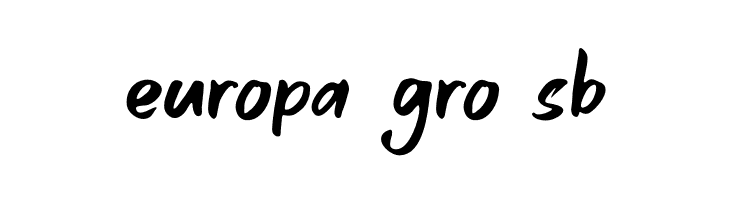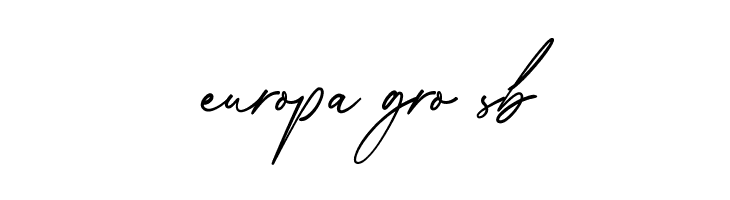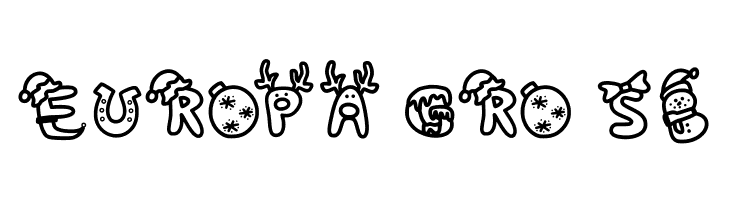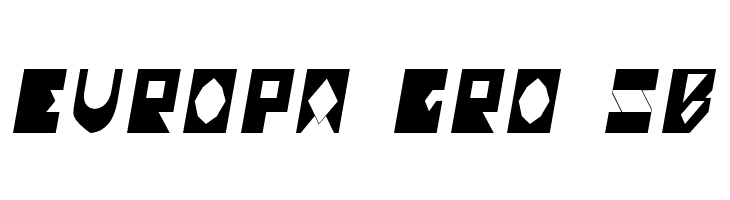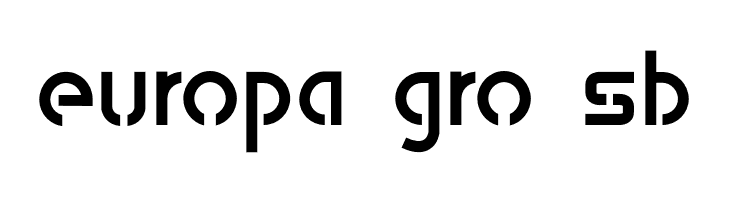
A playful, handwritten font with a quirky and whimsical style.
A bold, contour-outlined font with a collegiate, varsity style.
A bold, geometric font ideal for impactful and modern designs.
A bold, three-dimensional font with a strong geometric structure and shadow effect.
A bold, angular font with a three-dimensional outline, perfect for dynamic and impactful designs.
An elegant, flowing script font with high contrast and cursive letterforms.
A classic serif font with elegant strokes and balanced proportions.
Handwritten cursive script font.
A playful, handwritten font with fluid strokes and dynamic character.
An elegant script font with flowing, interconnected letters and a classic appearance.
A bold, modern sans-serif font with clean lines and balanced spacing.
A sleek, modern italic font with clean lines and a dynamic appearance.
A sleek, modern italic font with clean lines and balanced proportions.
An artistic, hand-drawn font with elongated strokes and a playful yet elegant style.
A playful, hand-drawn font with a bold, rounded style and informal charm.
A tall, narrow font with a modern and elegant style.
A tall, narrow, and modern font with clean lines and uniform spacing.
A tall, narrow font with clean lines and a modern, sophisticated style.
A bold, geometric font with diagonal lines and solid shapes, offering a modern and edgy look.
A bold, geometric font with a futuristic and digital aesthetic.
A pixelated, retro-style font with a blocky, digital appearance.
Festive, hand-drawn display font with Christmas motifs and bold outlines.
A bold, dotted font with a digital display aesthetic.
A bold, 3D italic font with a textured, industrial look.
A bold, 3D font with a rugged, distressed texture and vintage appeal.
A bold, rugged, and textured font with a distressed appearance.
A bold, condensed, and italic font with a distressed, grunge aesthetic.
A bold, distressed font with an expanded width and vintage appeal.
A bold, expanded, italic font with a rugged, textured appearance.
A bold, italicized font with a distressed texture for a rugged look.